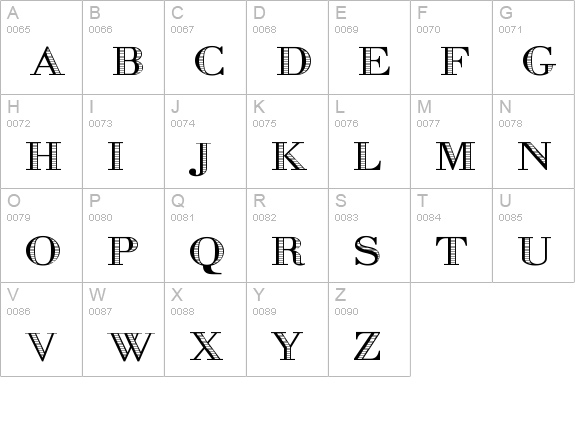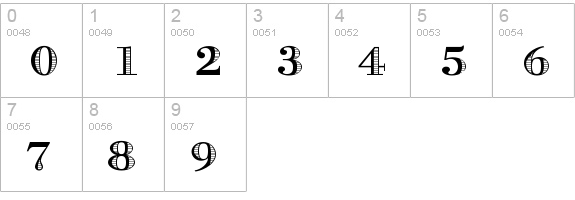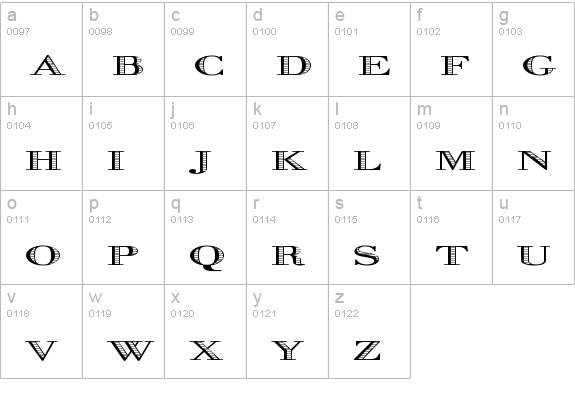
Graphis Font Details
Graphis is a modern and elegant font that exudes sophistication and versatility. With its clean lines and timeless appeal, Graphis is the perfect choice for a wide range of design projects. Whether you are creating a sleek corporate identity, designing a stylish website, or crafting a beautiful invitation, Graphis will elevate your work to new heights. The best part? Graphis is available for free download at FontsMarket.com. That's right, this stunning font can be yours at no cost, allowing you to enhance your projects without breaking the bank. Don't miss out on the opportunity to add Graphis to your font collection and unlock endless creative possibilities. Download Graphis today and watch your designs come to life with style and sophistication.